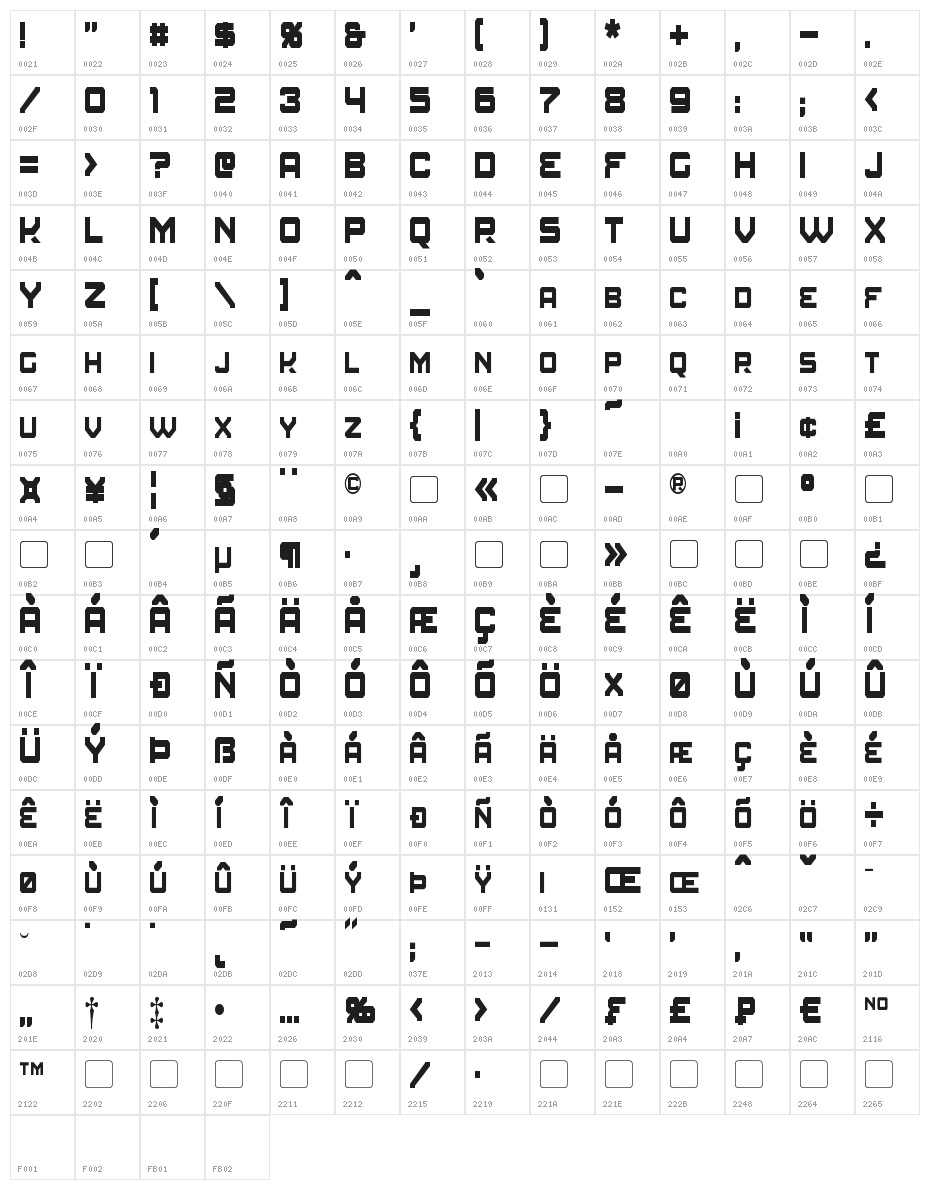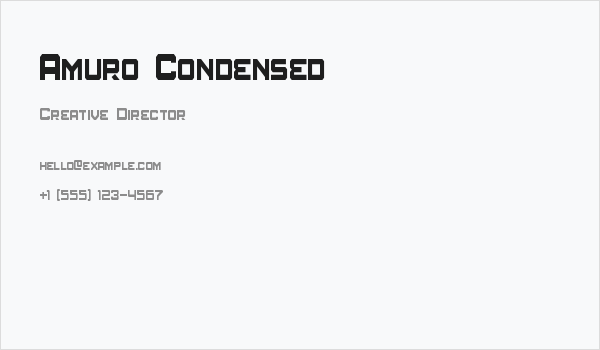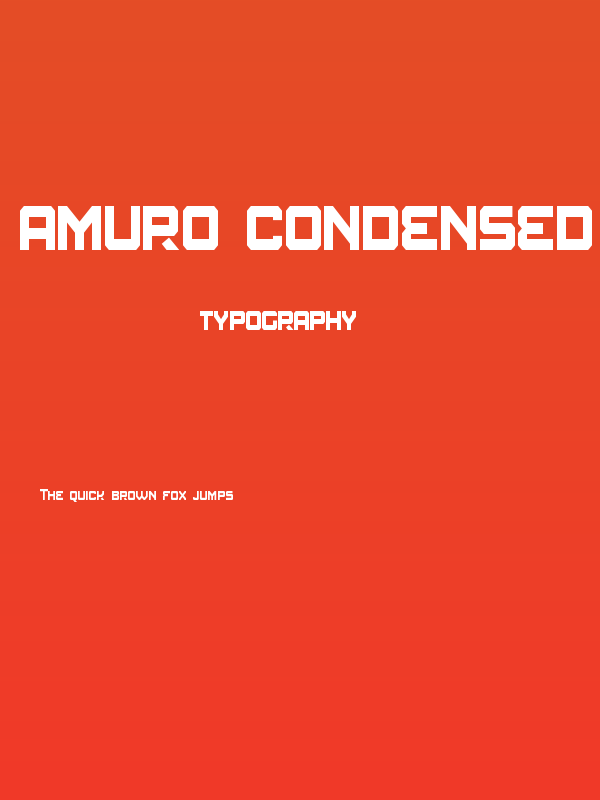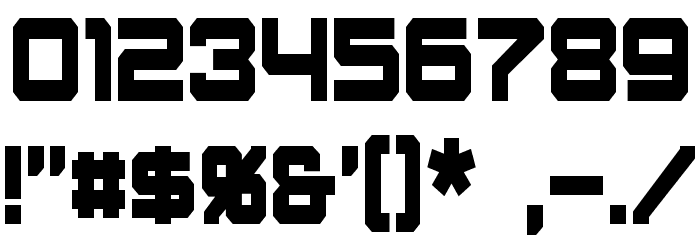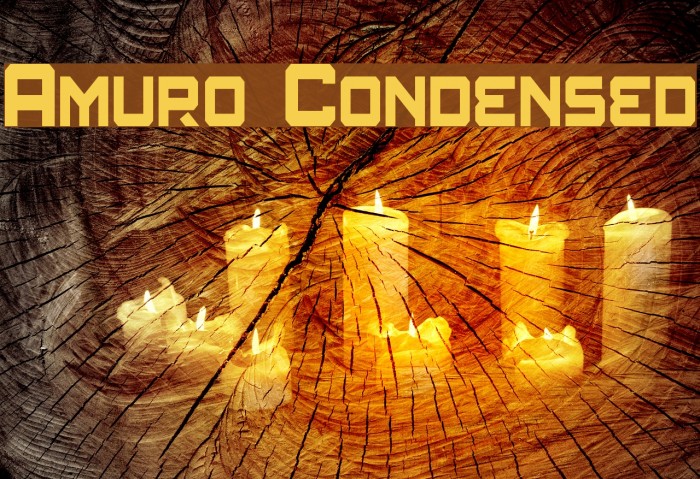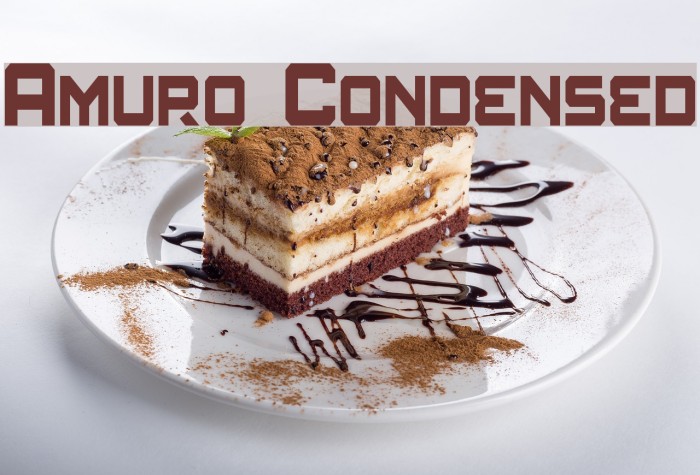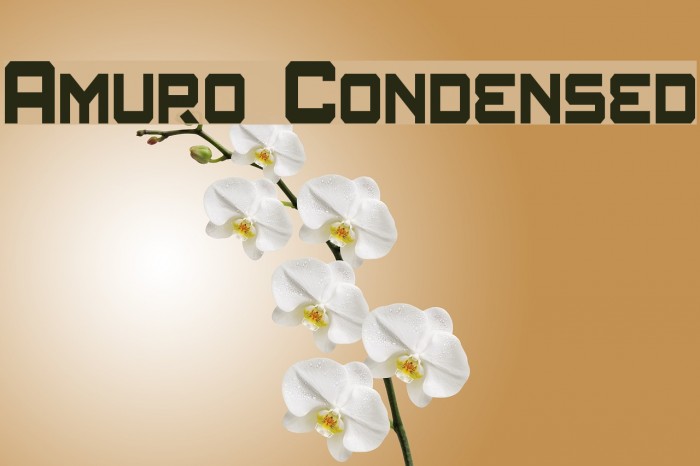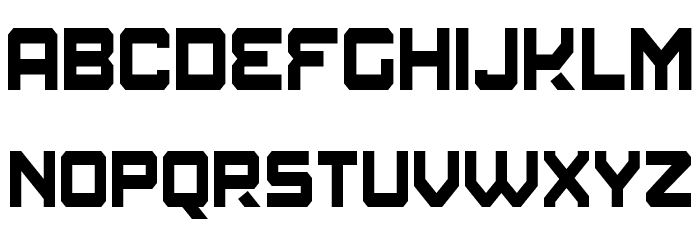
Amuro Condensed Font
Amuro Condensed Description
This font features a bold and geometric design with a distinctly modern and futuristic aesthetic. The characters are constructed with sharp angles and straight lines, giving them a strong and impactful presence. The uppercase letters are uniform in height, while the numerals and special characters maintain the same bold style, ensuring consistency across all elements. The condensed width of the characters allows for efficient use of space, making it ideal for headlines and titles where impact is essential. The font's unique style is both eye-catching and versatile, suitable for a variety of design applications.
| Proposed Projects | Ideal for use in technology branding, video game titles, futuristic posters, and any project requiring a modern and bold typeface. |